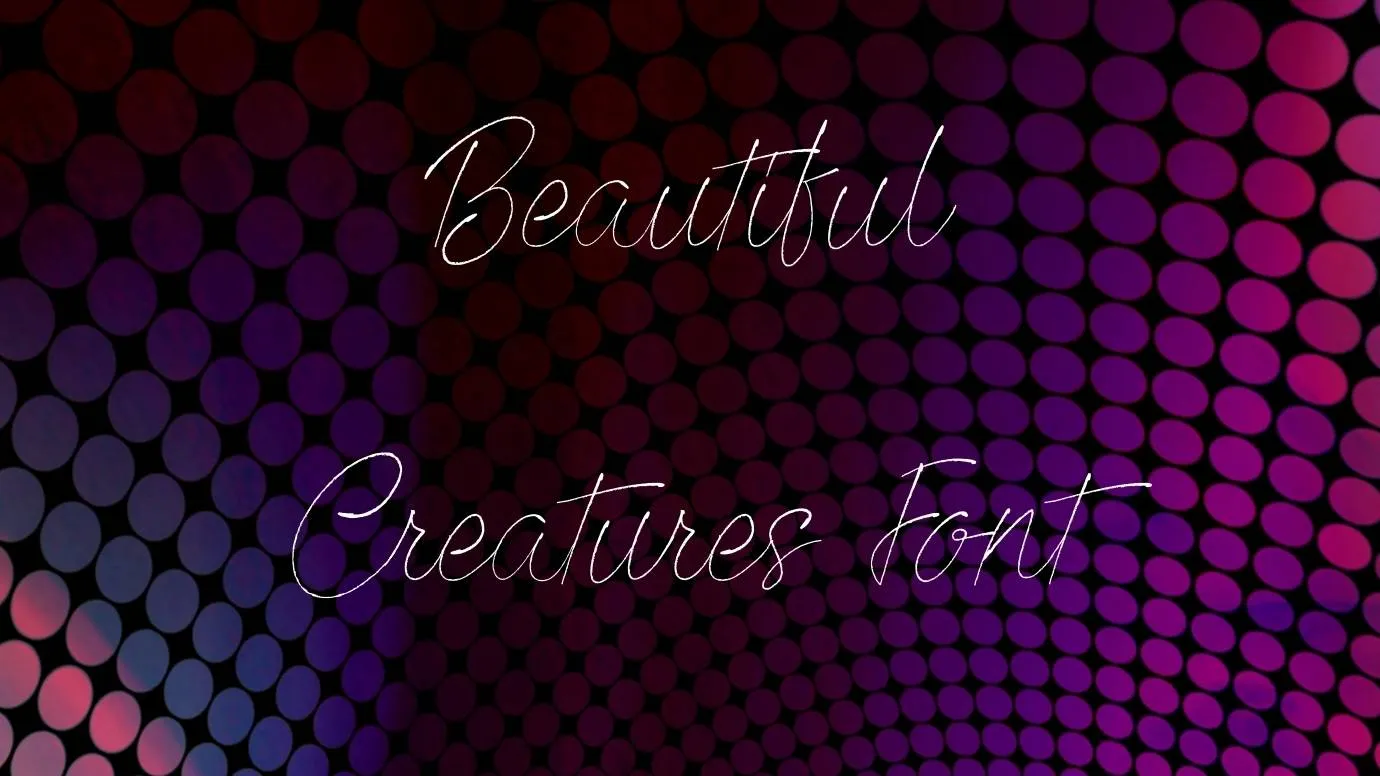
Beautiful Creatures Font Family is a modern handwritten typeface that has attractive hand-drawn characters. This font was designed by Octotype with its fantastic shape. It is a pretty script typeface that has two script styles.
This stunning typeface is perfect for use in graphic designs of different types. It can help you for creating astonishing designs and it is available for specific places. This stunning typeface has various fascinating features and attractive structures.
Beautiful Creatures Font